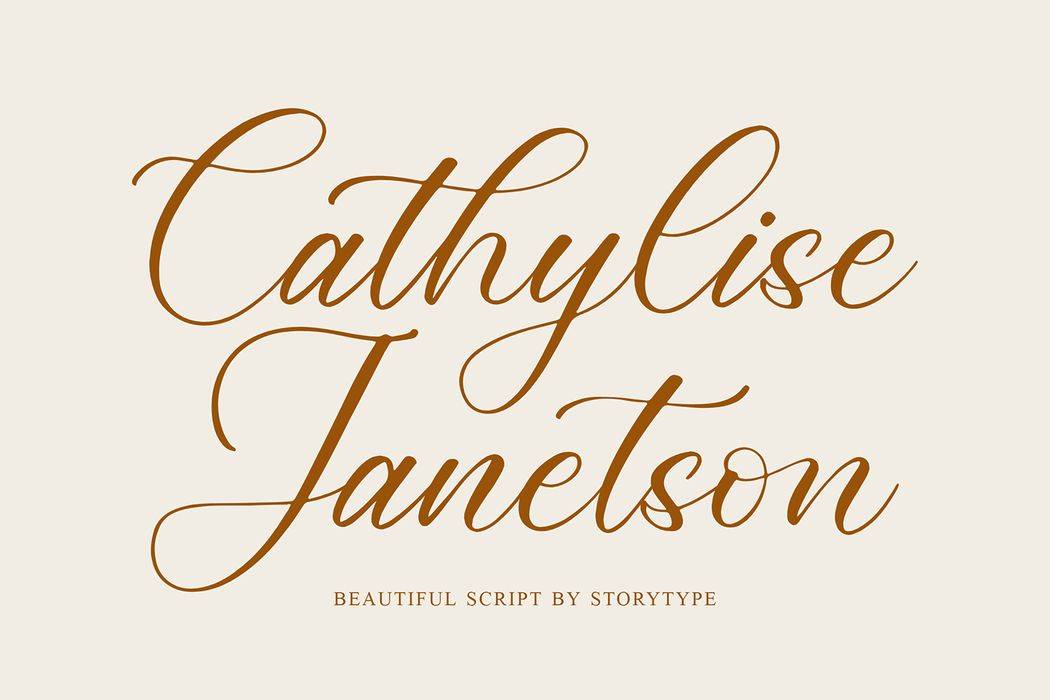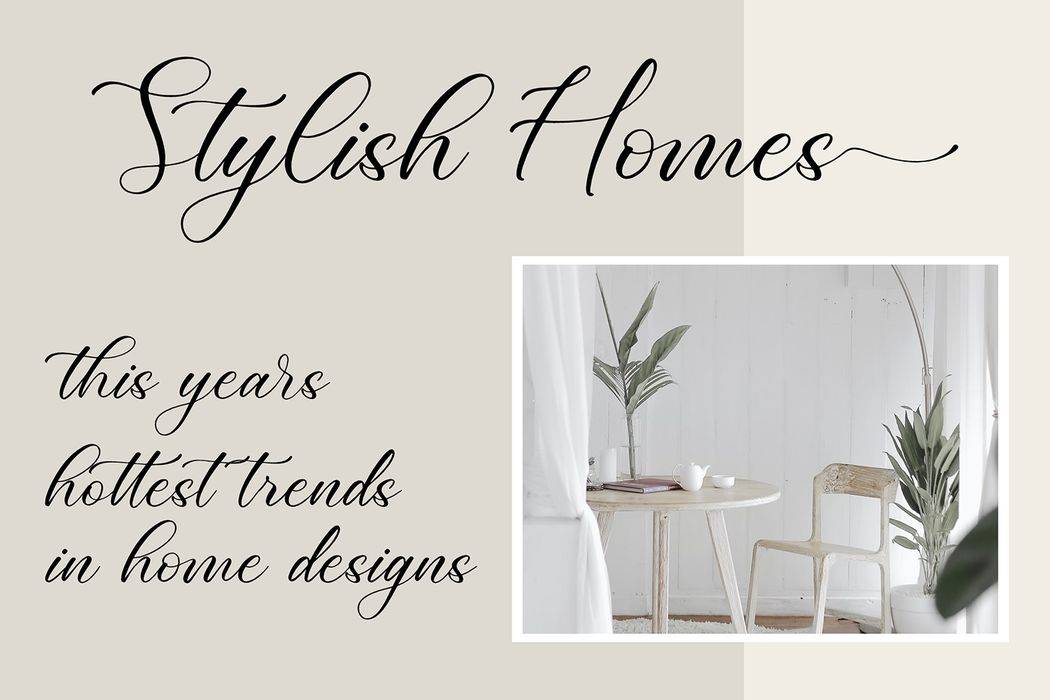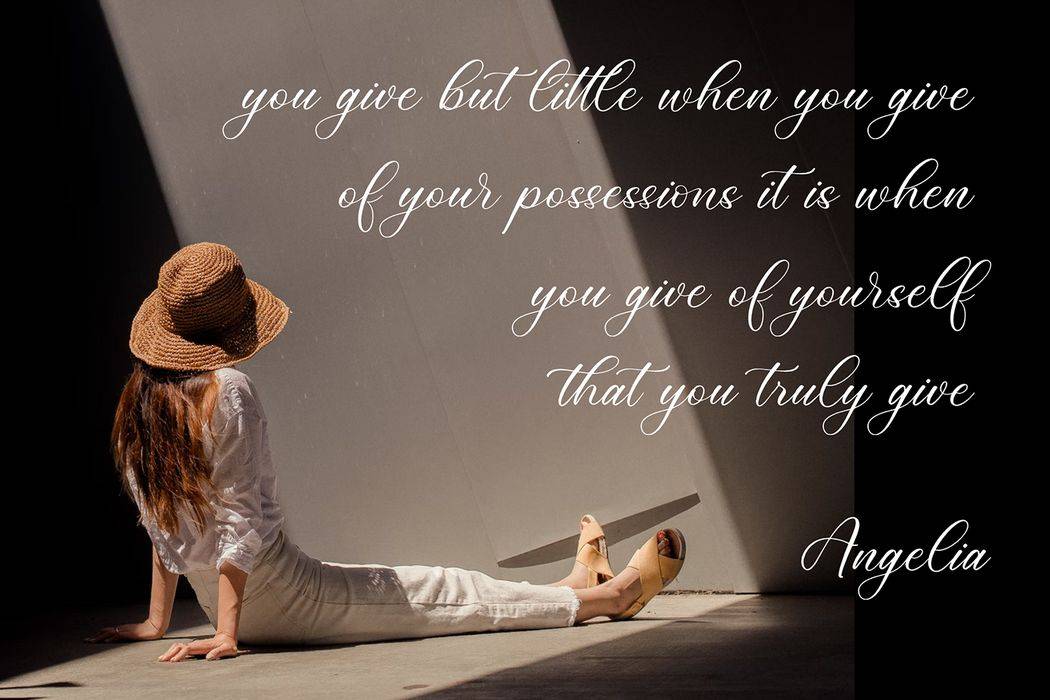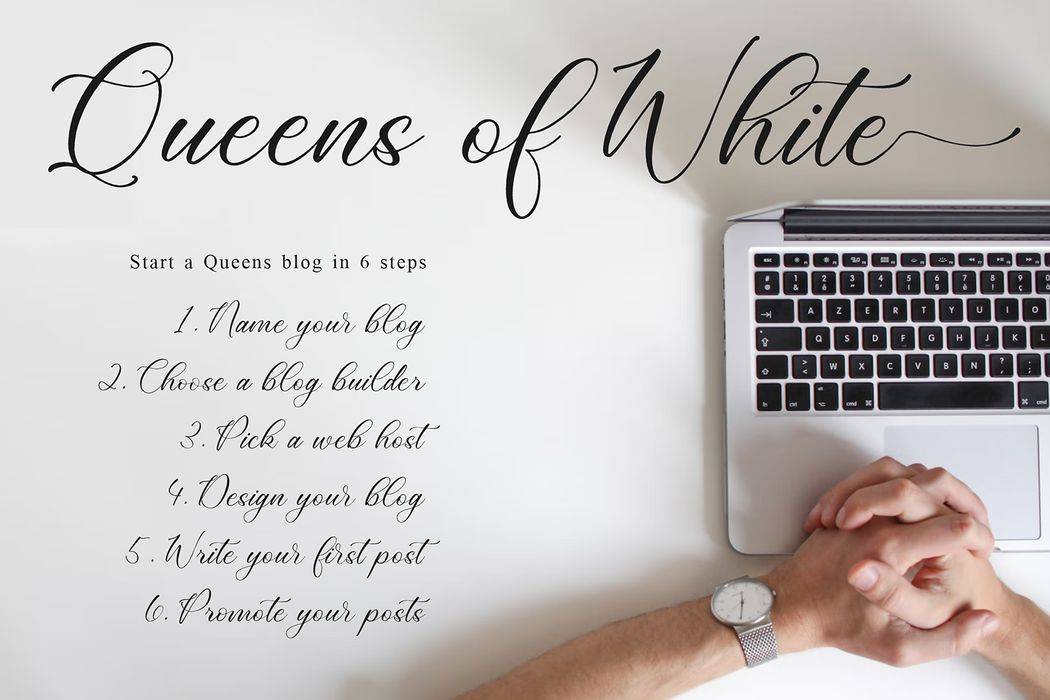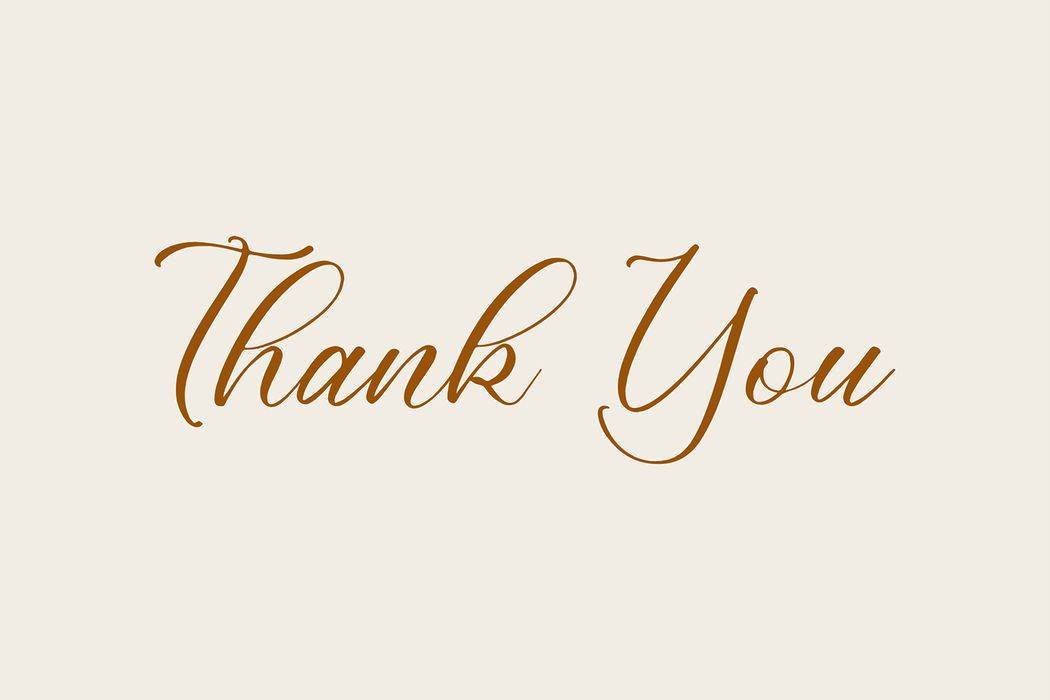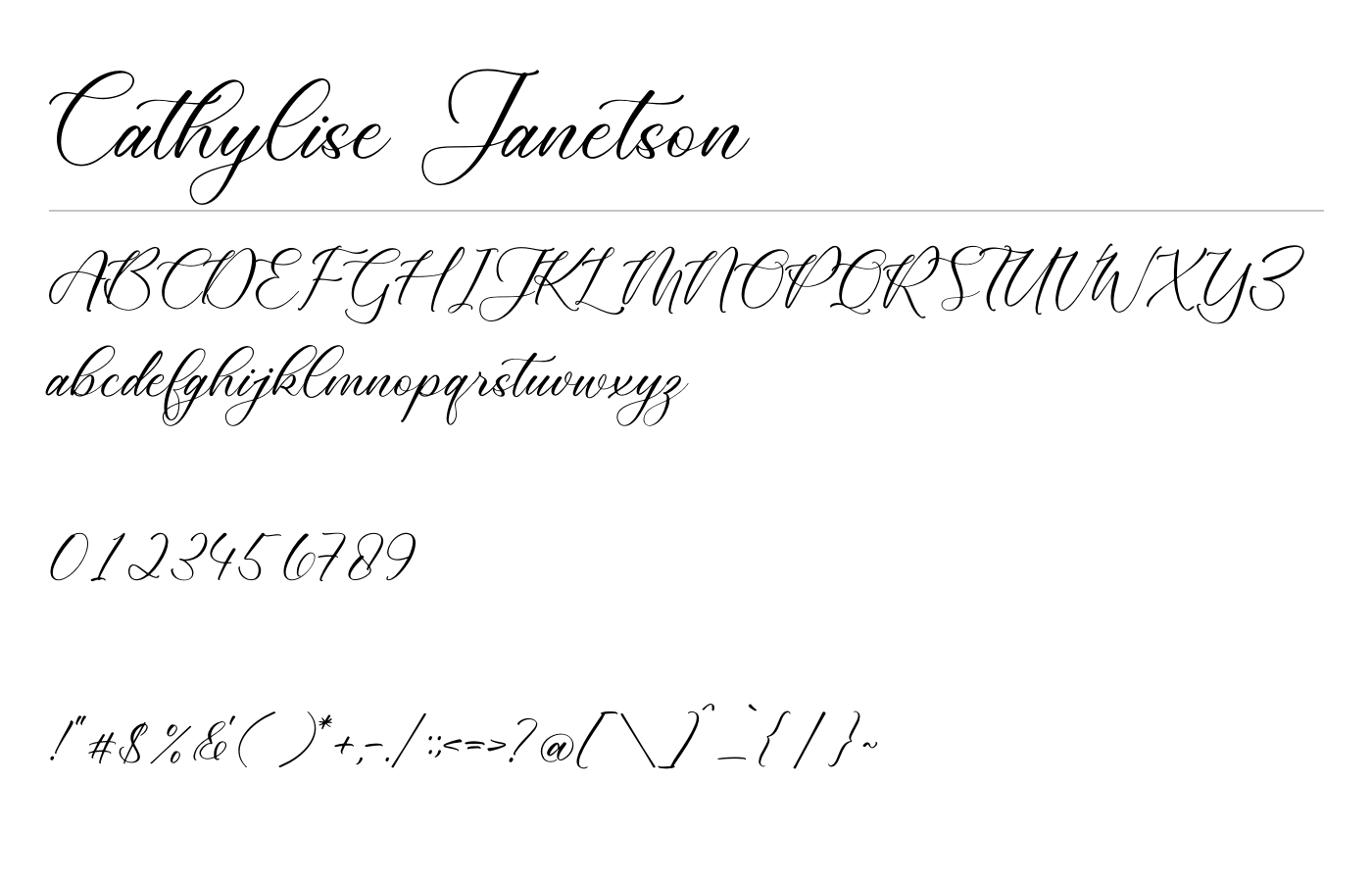
Cathylise Janetson is an elegant script font characterized by its delicate, flowing strokes and high contrast between thin and thick lines. Its finely crafted letterforms convey a graceful and sophisticated feel, making it ideal for luxury branding, invitations, and stylish editorial work where a touch of refined handwriting is desired. This font shines best in headlines or decorative uses, adding a romantic and personal flair to designs.
Cathylise Janetson Font
About Cathylise Janetson Font